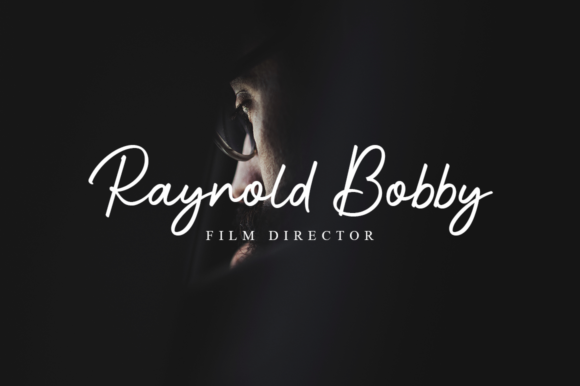
Photoshoot Font
db-ku.com - Script & Handwritten -- Photoshoot is a unique script with a classy and fancy feel. This handwritten font will add an authentic vibe to any design project!